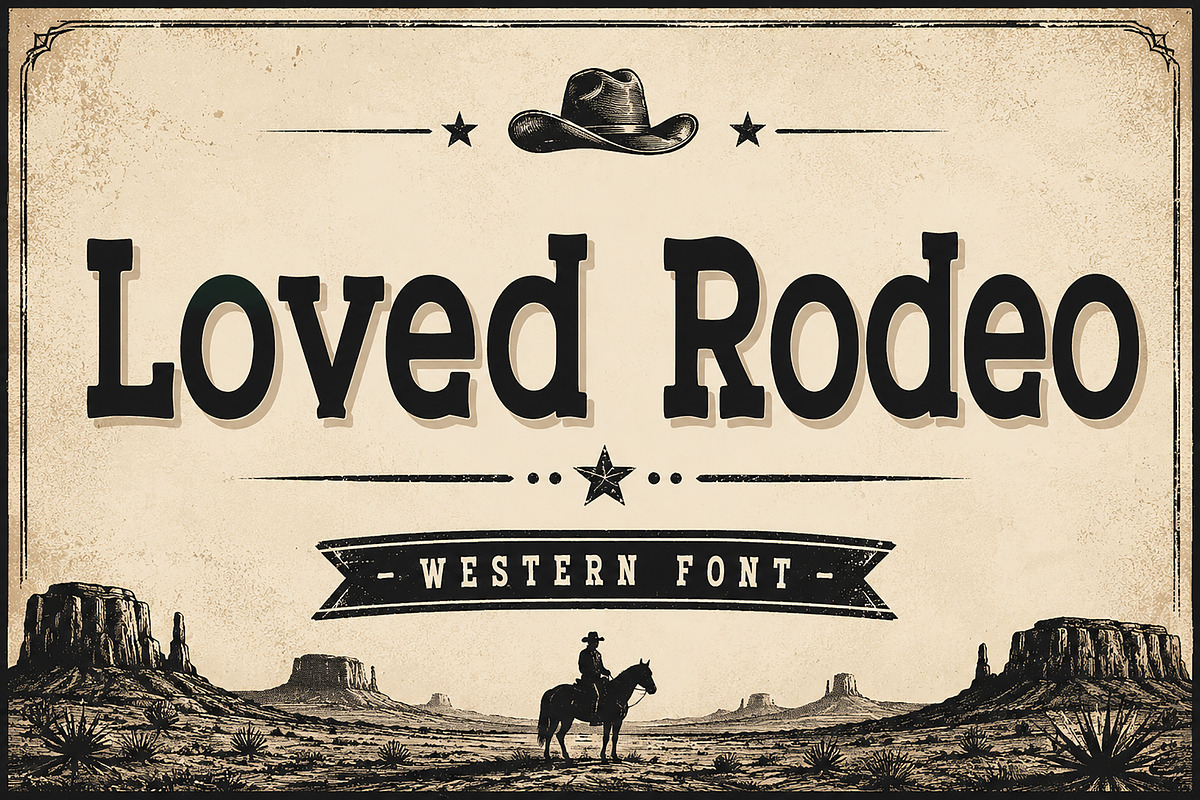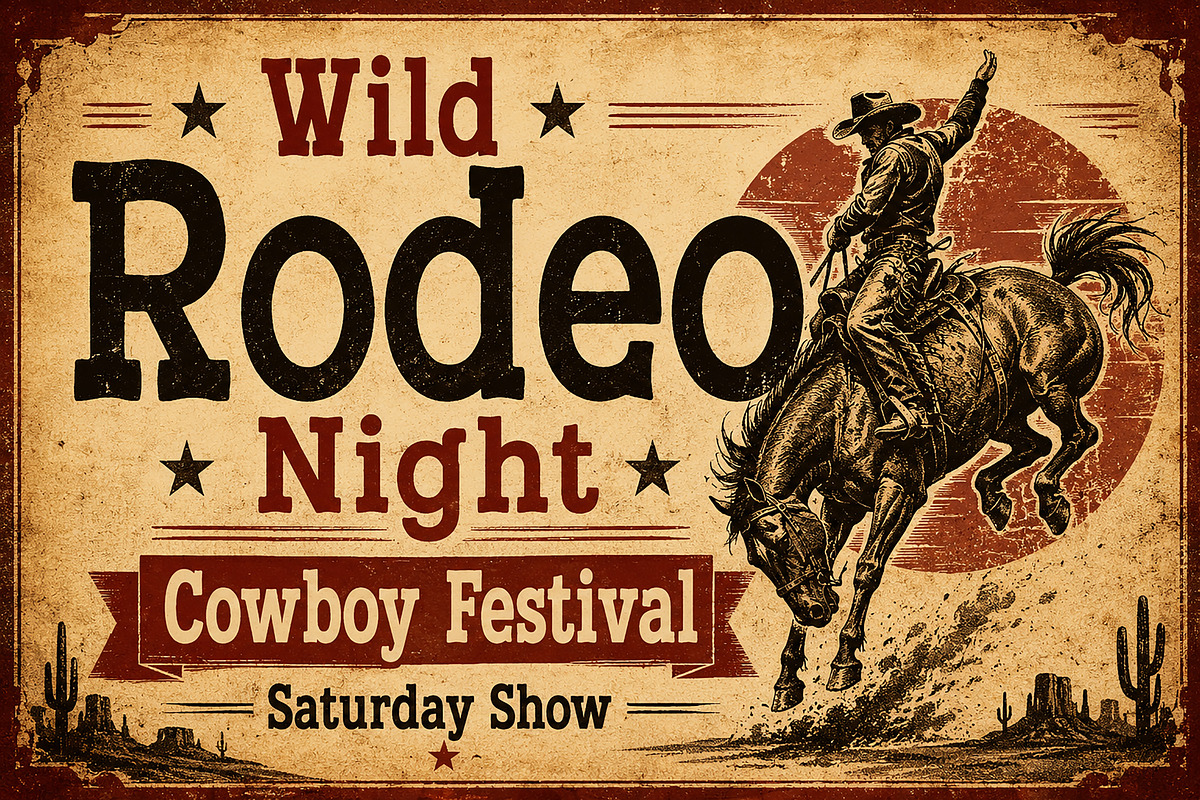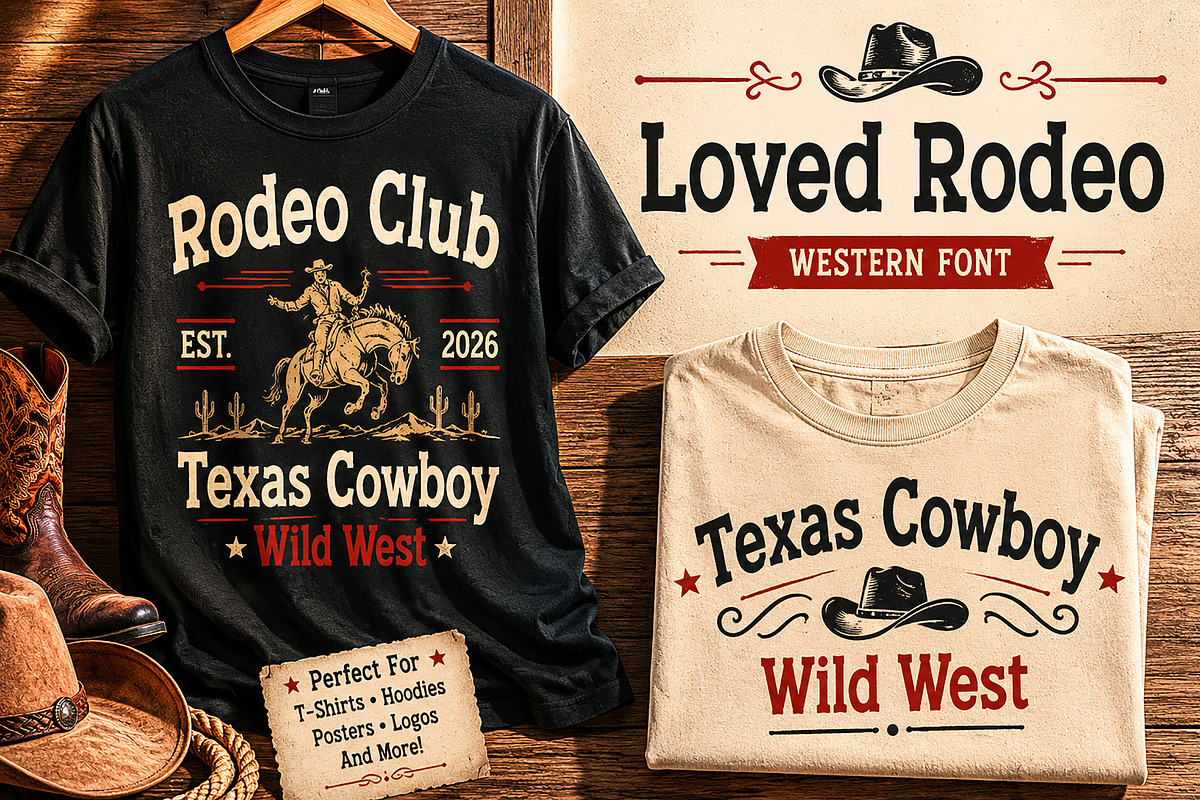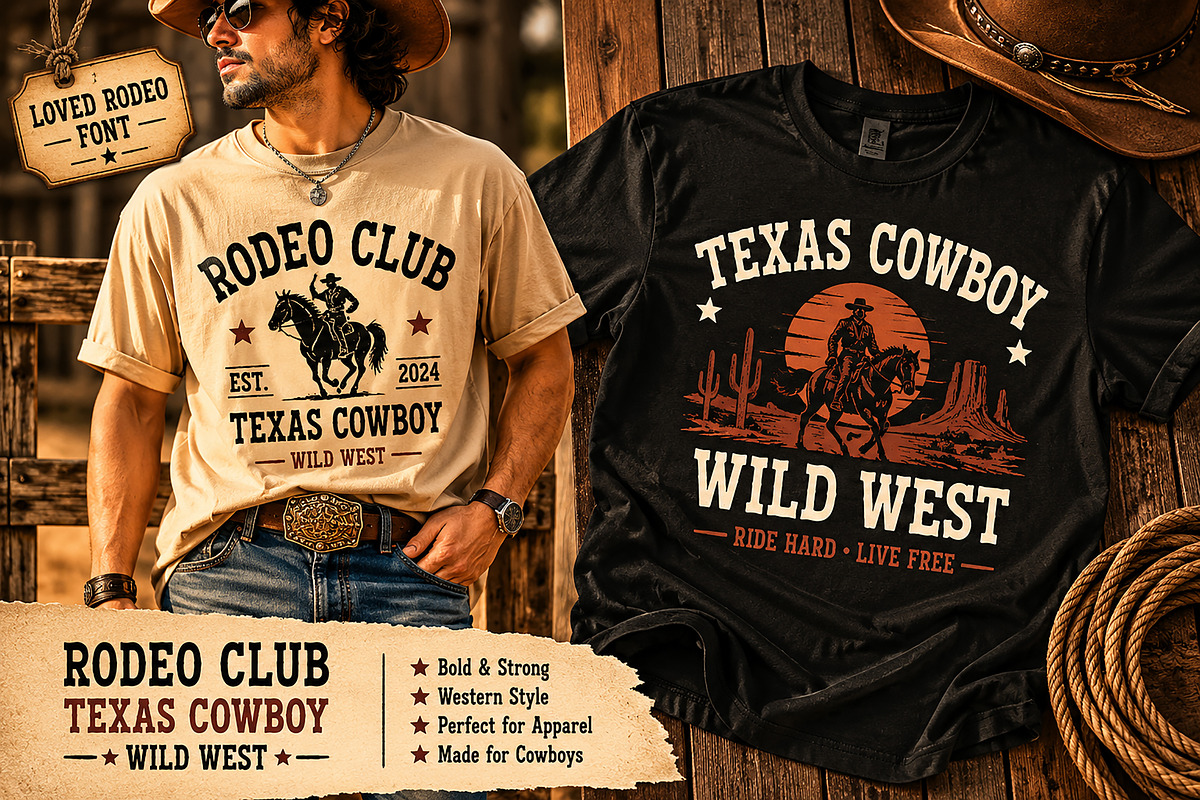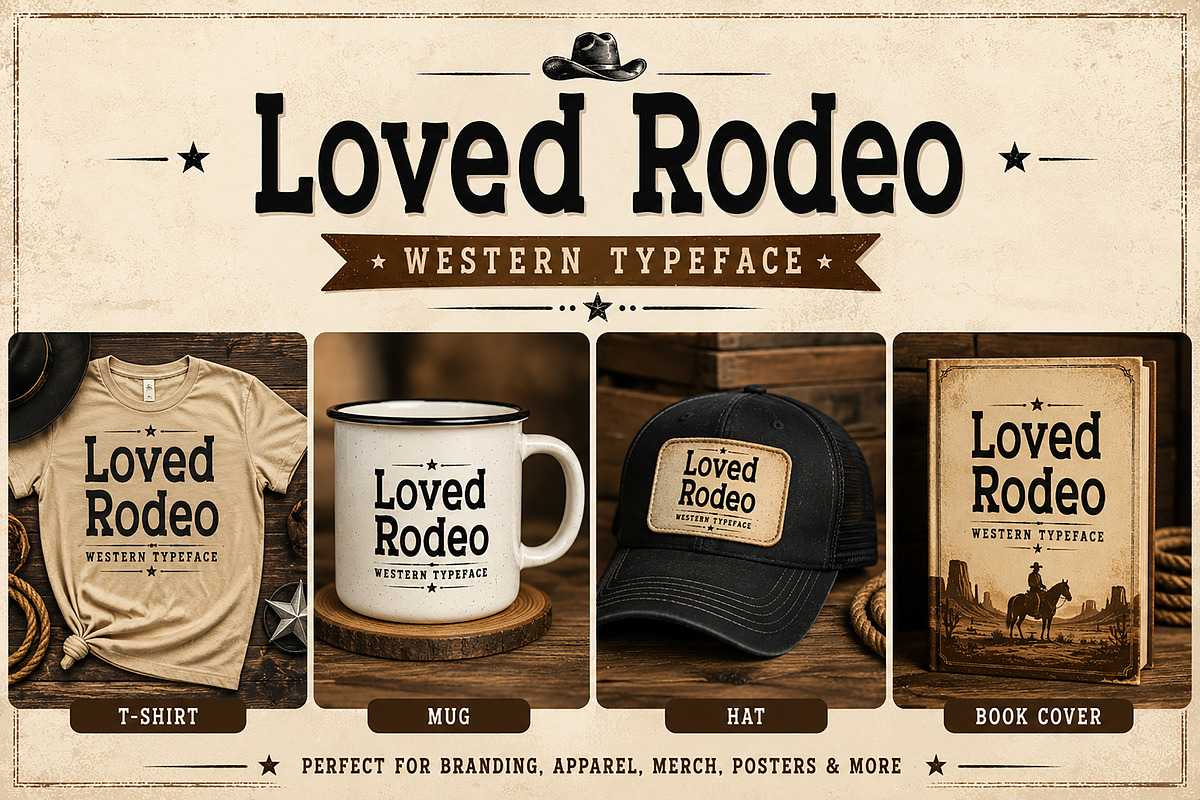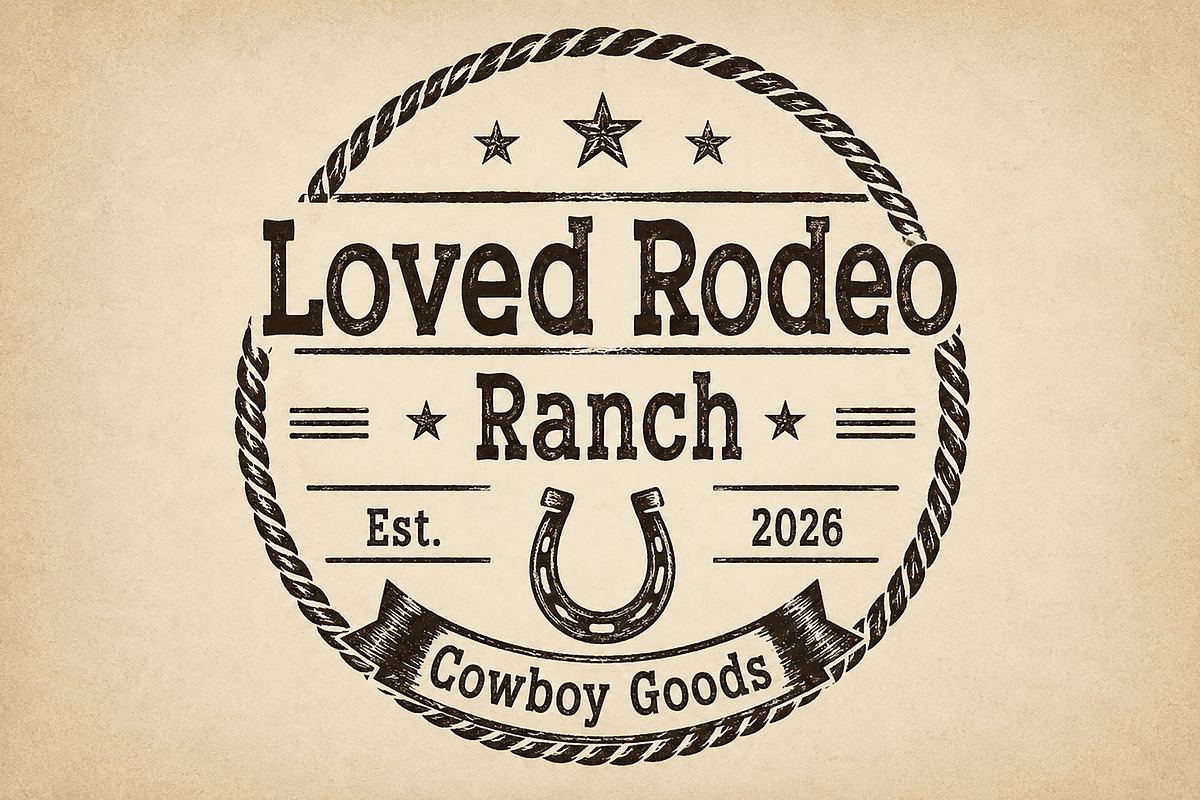
Loved Rodeo
Loved Rodeo – Western Display Font
Loved Rodeo is a bold western display font inspired by classic cowboy culture, vintage rodeo posters, ranch branding, and rustic Americana typography. With its strong serif shapes and authentic western character, this font brings a timeless wild-west personality to your creative projects.
Perfect for logos, apparel, posters, packaging, badges, signage, book covers, merchandise, and rustic branding designs. Loved Rodeo delivers a bold handcrafted look that instantly creates a vintage cowboy atmosphere while remaining clean and easy to read.
Whether you're designing a rodeo event poster, western t-shirt, country music branding, ranch logo, or vintage merchandise, Loved Rodeo gives your work an authentic western aesthetic with powerful visual impact.
Western Logos
Rodeo Posters
Cowboy Apparel
Ranch Branding
Vintage Packaging
T-shirt Design
Badge & Emblem Design
Country Music Graphics
Rustic Merchandise
Event Flyers
Vintage Western Style
Bold Serif Character
Perfect for Branding & Apparel